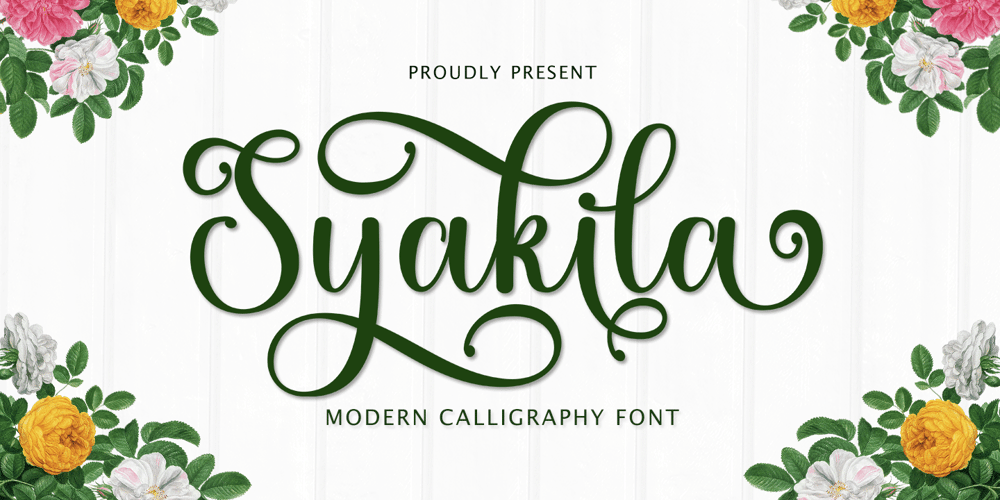
Syakila Script Font Family was designed by Zaki Muhammad and published by madjack.font. Syakila Script contains 1 styles and family package options. -INTRODUCE-Syakila Script is a modern calligraphy font. Here you will find beautiful script fonts. This font is available with several modern swirls that can make your work look elegant, sweet and flawless. It can be used for various purposes such as headings, signatures, logos, wedding invitations, t-shirts, letterheads, signage, labels, news, posters, badges etc.Syakila Script features alternatives to OpenType styles, binders, and International support for most of the included Western Languages. To activate the OpenType Stylistic alternative, you need a program that supports OpenType features such as Adobe Illustrator CS, Adobe Indesign & CorelDraw X6-X7, Microsoft Word 2010 or a later version. How to access all alternative characters using Adobe Illustrator:https://www.youtube.com/watch?v=XzwjMkbB-wQSyakila Script is coded with PUA Unicode, which allows full access to all additional characters without having to design special software. Mac users can use Font Book, and Windows users can use Character Map to view and copy additional characters for pasting into your favorite text editor / application. How to access all alternative characters, using the Windows Character Map with Photoshop:https://www.youtube.com/watch?v=Go9vacoYmBwIf you have any questions, feel free to contact me.Thank you very much for viewing and Enjoying it!